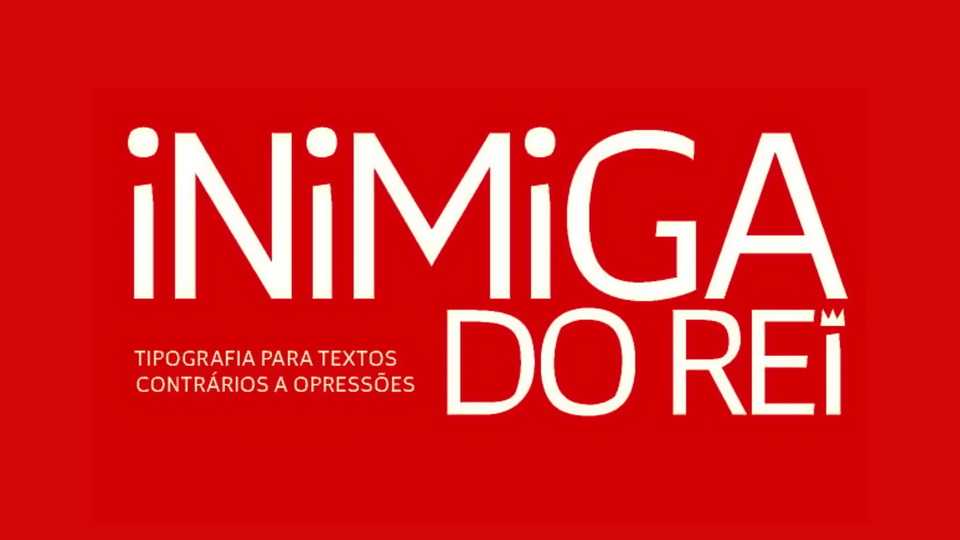
Download Inimiga do Rei font, a sans serif typeface, the graduation project, created to be used in books that speak against oppressions such as sexism, racism, homophobia and class oppression.
Designer: Eduardo Cazon